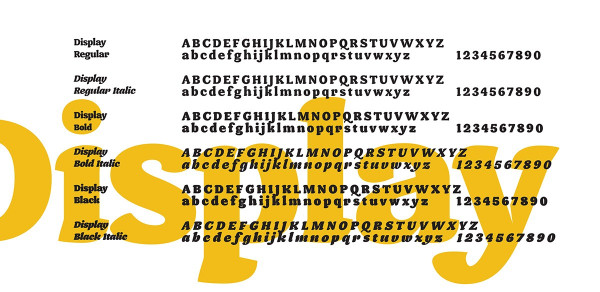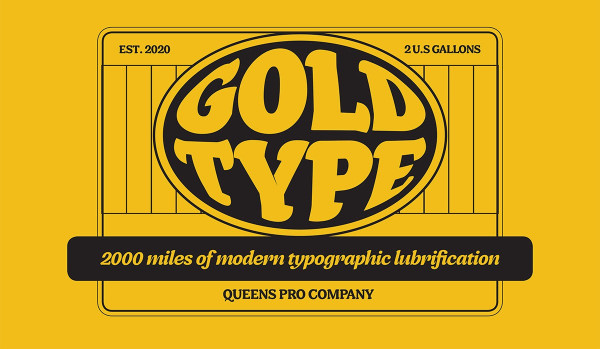
Queens Pro Font
Queens Pro Font is a friendly, chubby typefaces with rounded serifs and thick terminals. This typeface is strongly influenced by humanist broad nib calligraphy and 1970’s popular type styles, and features five text weights and three display weights, all with matching italics.
Queens Pro’s text weights are characterised by low contrast and a light texture, which makes them perfect for long stretches of text in publications, magazines and books. The display weights are fun and playful, suitable for brands, headlines or label design. The italic is a true italic sporting variable angles (from 11° to 14°) with a calligraphic feel. In the lighter weights, the gradually retracting serifs and large x-height emphasise the influence of humanist letterforms, while in the heavier weights they provide a dense, consistent texture.